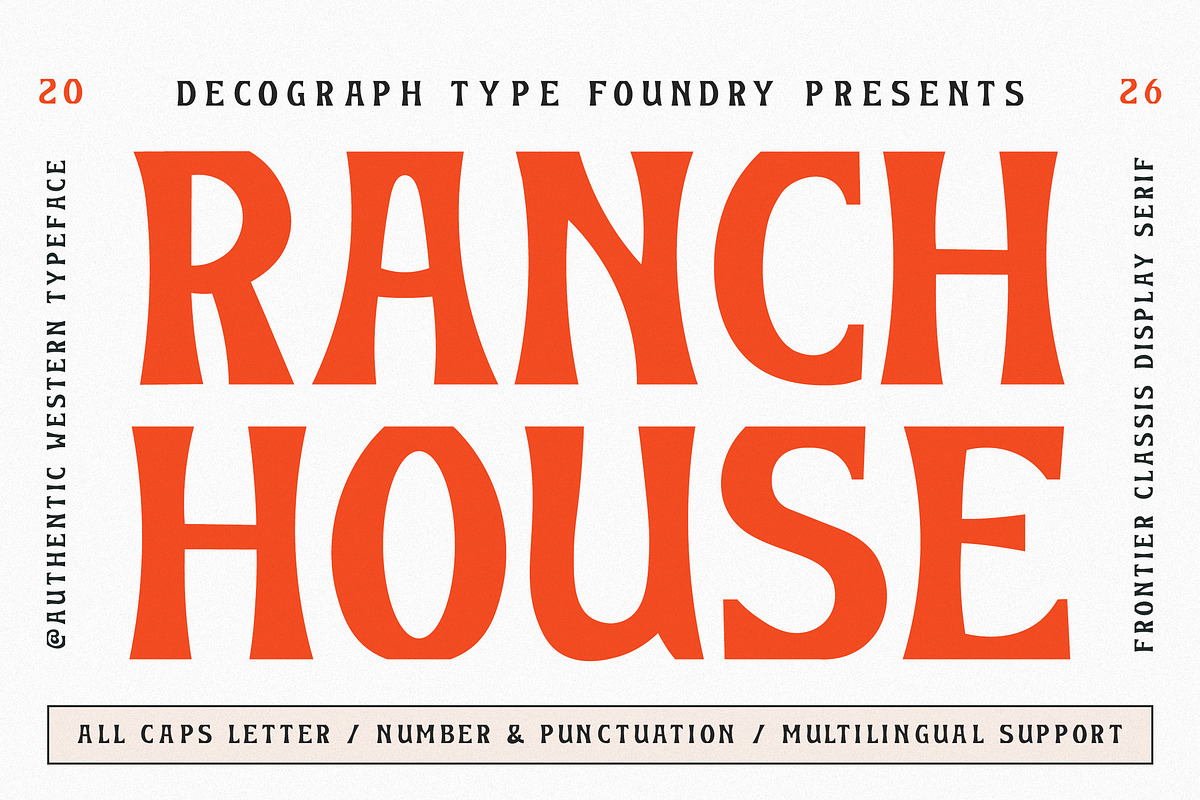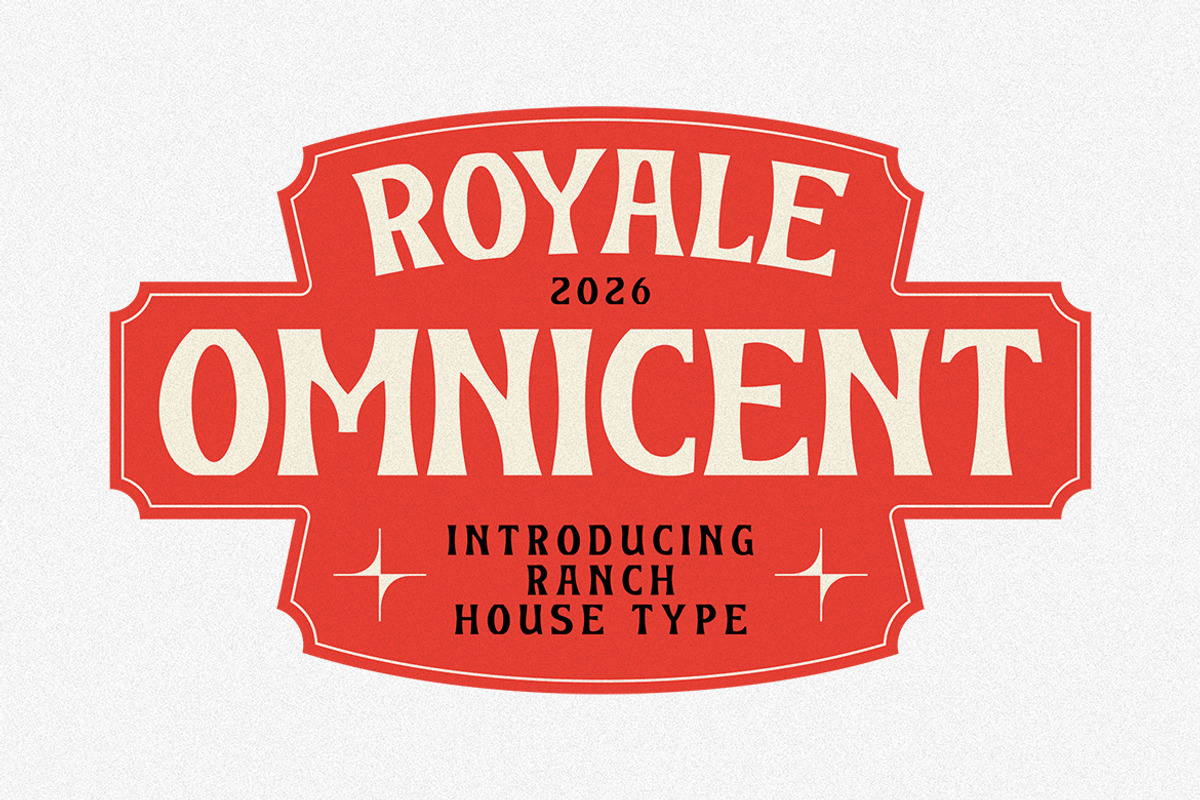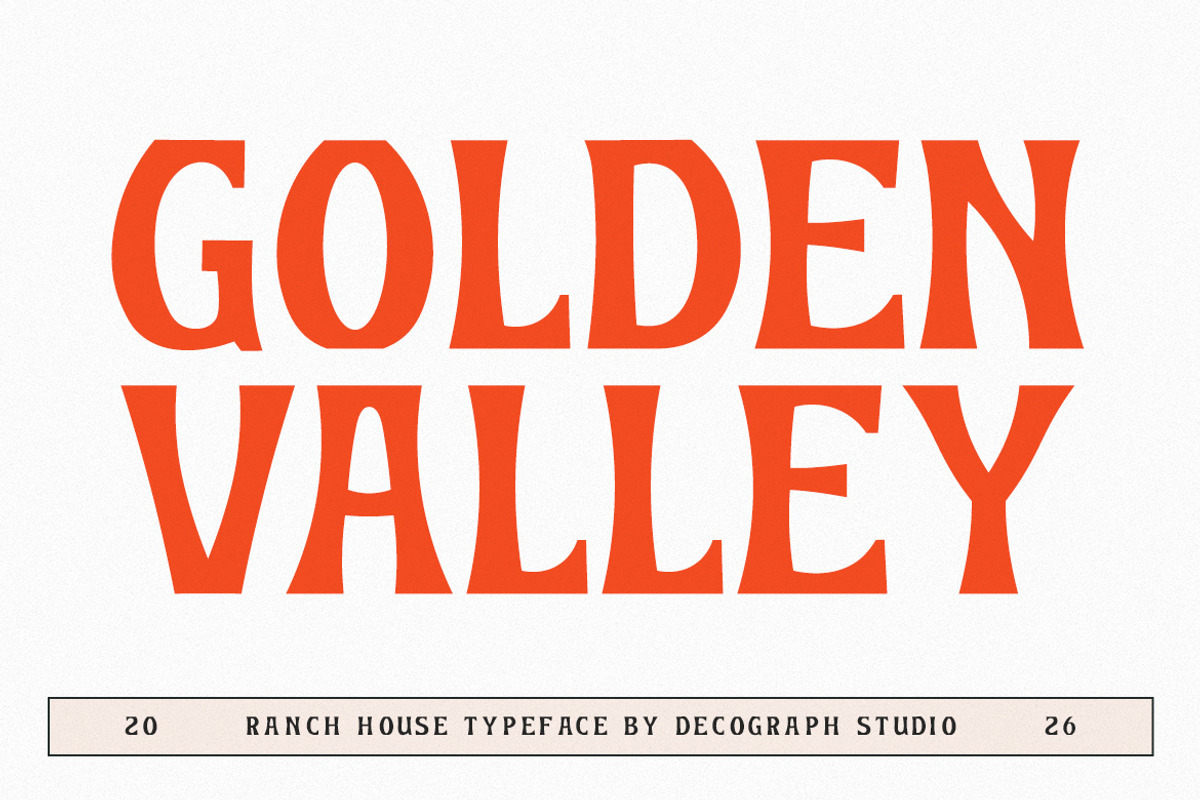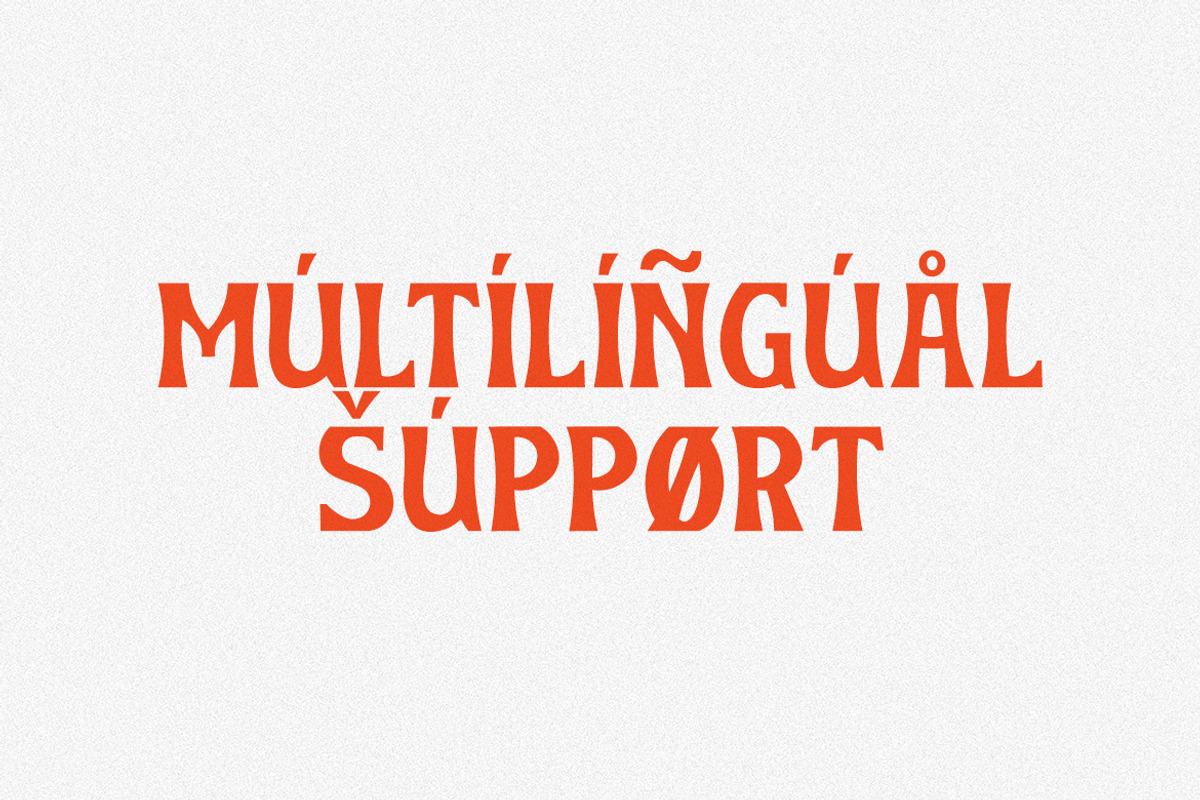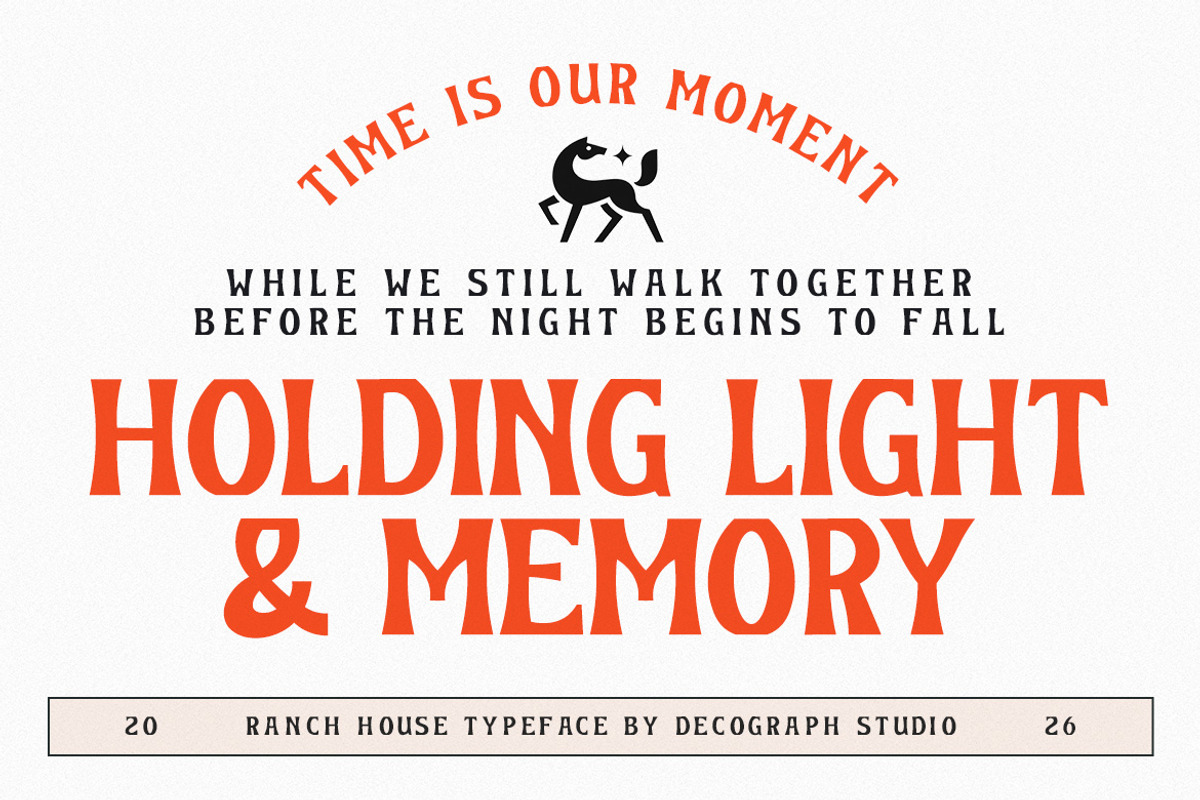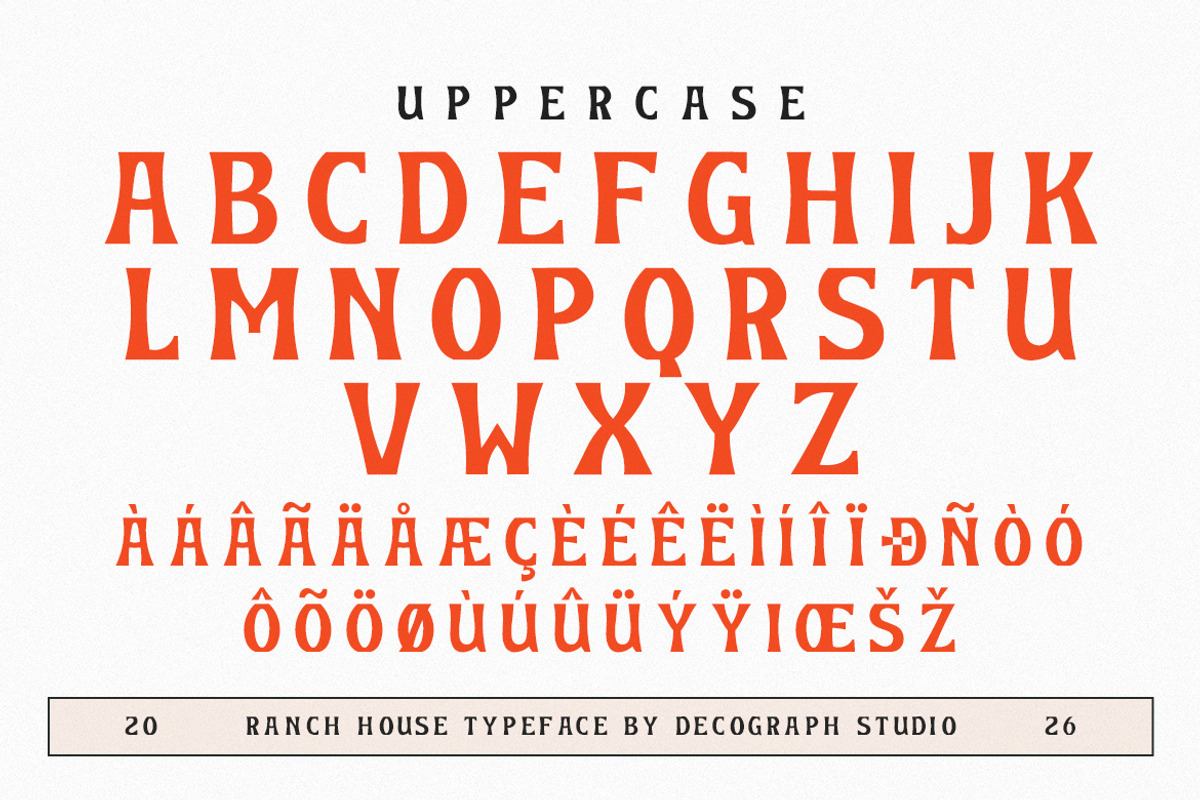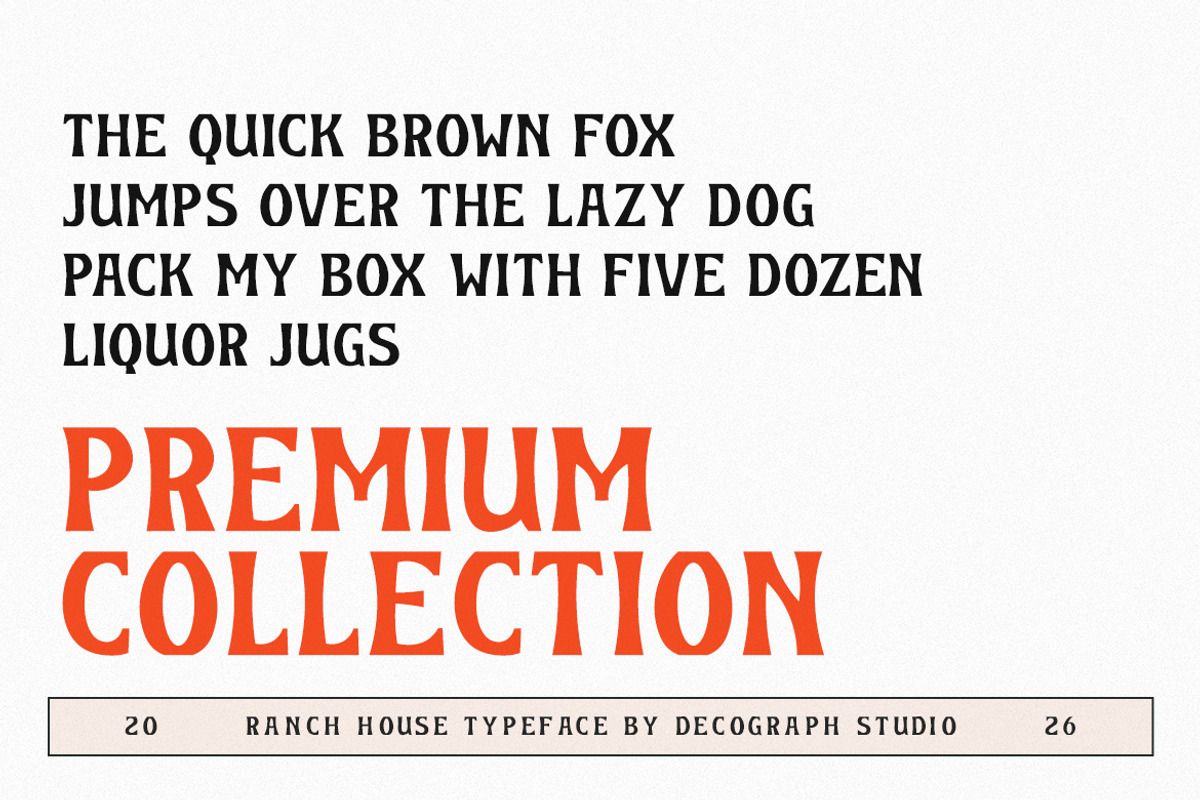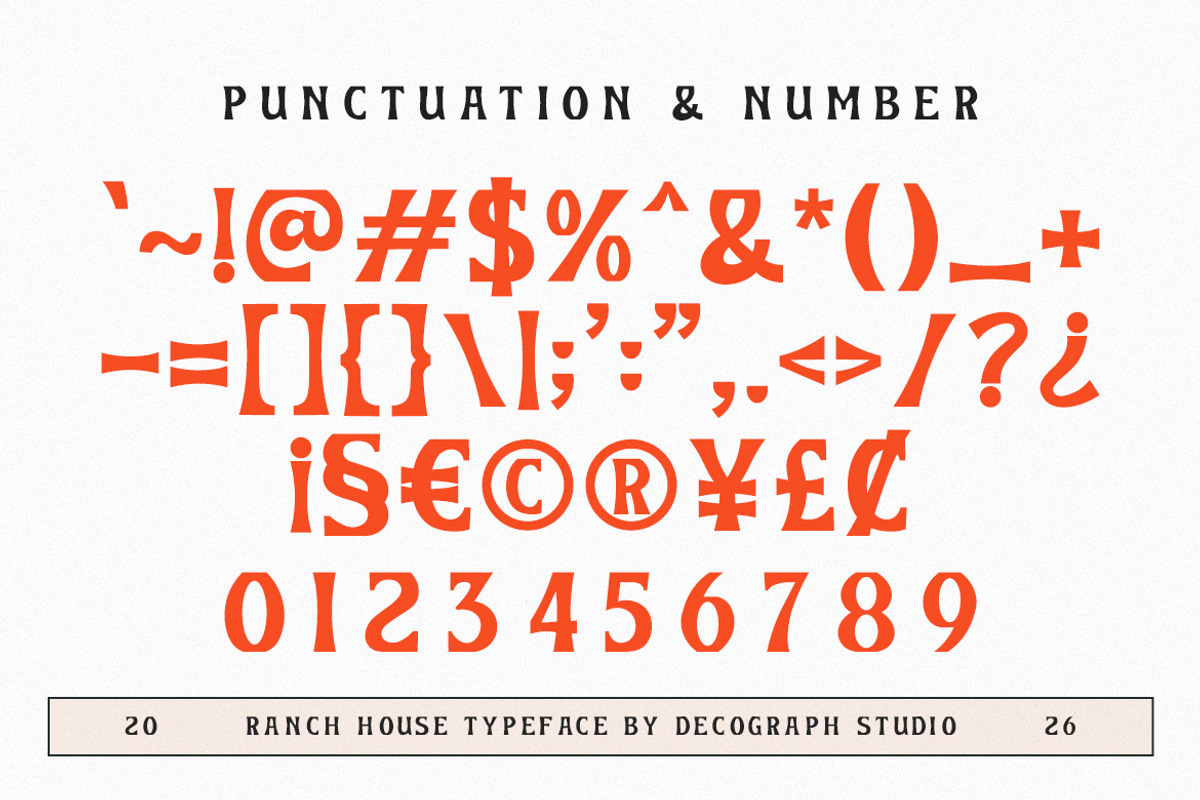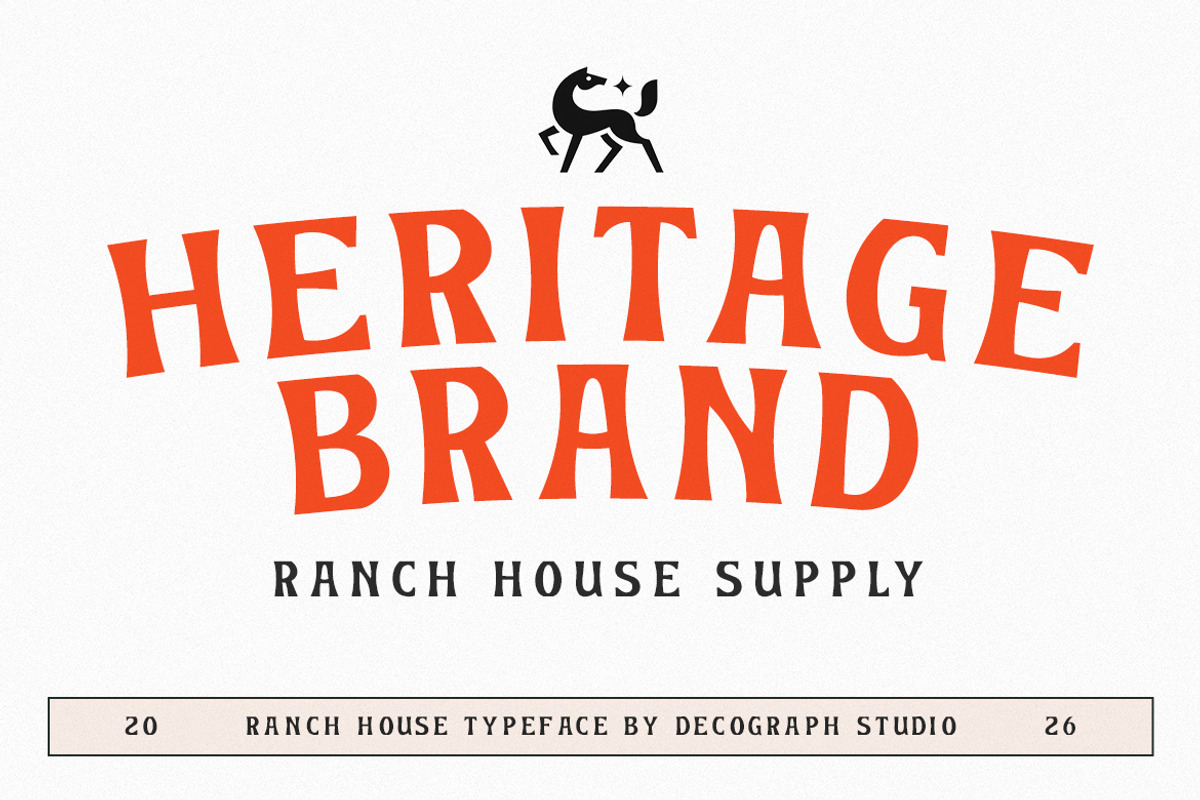
Ranch House – Western Classic Serif
Ranch House is a bold western display serif that captures the spirit of frontier heritage with a modern refined edge, featuring strong slab-like serifs, tall proportions, and subtle vintage curves that evoke classic ranch signage and old-west typography. Designed for impactful headlines and statement branding, this typeface is perfect for logos, packaging, posters, apparel, and editorial designs that aim to deliver a rugged yet polished aesthetic—bringing a timeless western charm with a contemporary twist.